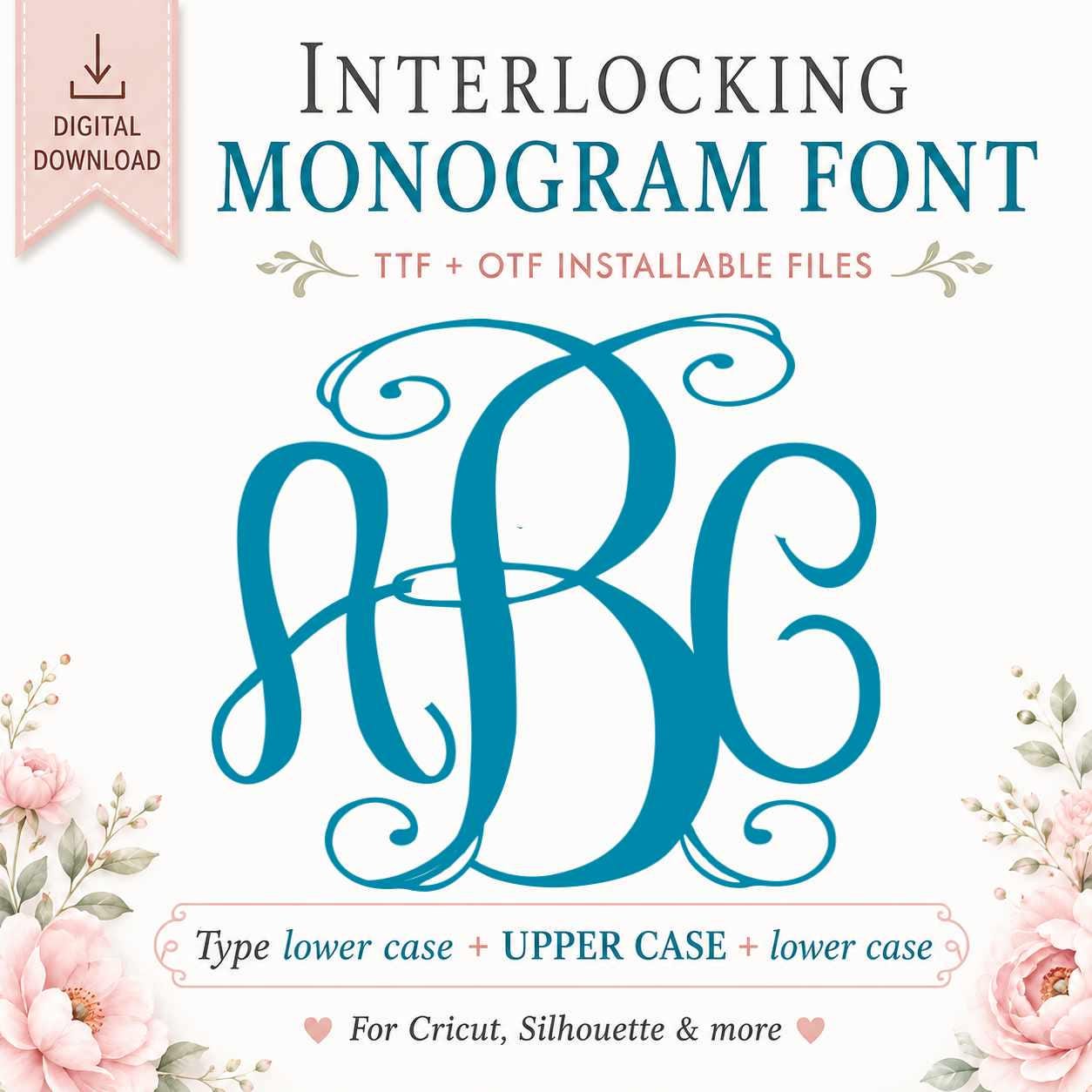
Classy Interlocking Monogram Font, .TTF & .OTF Installable Font
Classy Vine Interlocking True Type Monogram Fonts
To get the Monogram look as shown, type lower case for the outside letters and Upper Case for the Middle letter. Letters can be ungrouped in Cricut Design Space and Silhouette Studio so you can adjust the spacing between letters.